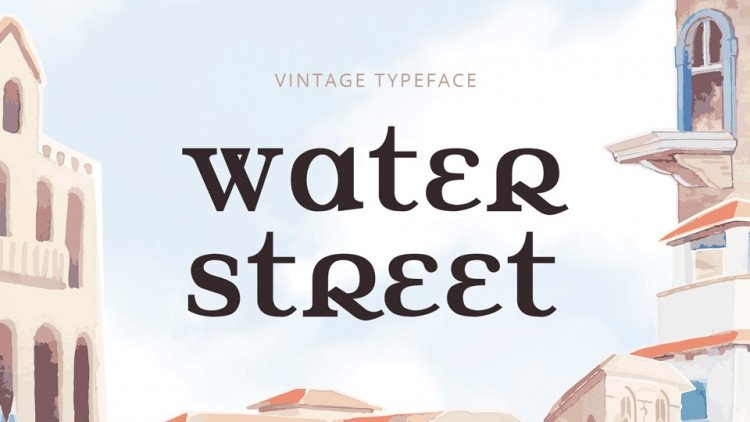
Water Street Free Font
Water Street Free Font is an old style serif typeface with mixed characters.
It contains lowercase letters and their alternates, ligatures, numbers, symbols and some multilingual support.
Water Street font looks great in vintage projects, cards, posters, prints and more.